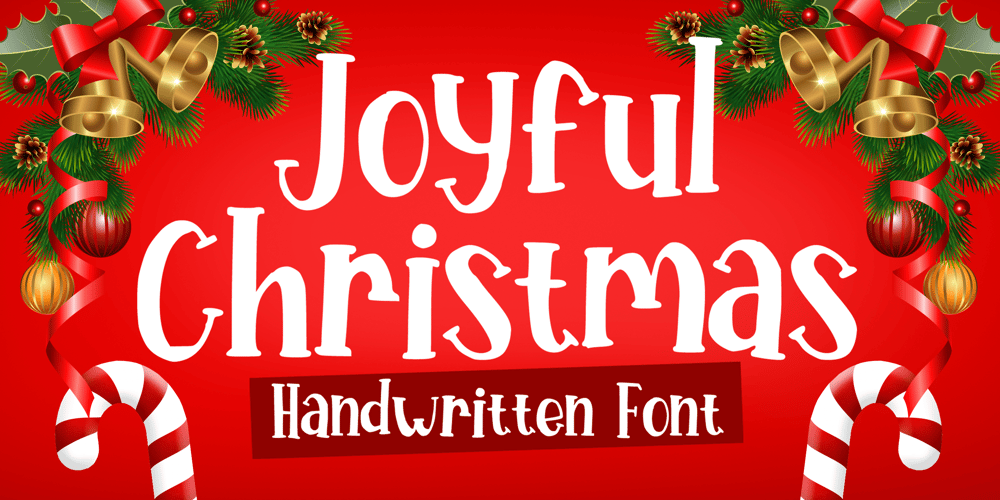
Joyful Christmas
Joyful Christmas font
Joyful Christmas Font Family was designed by Gabriel Valentinus and published by Mvmet. Joyful Christmas contains 1 styles and family package options. Joyful Christmas is your perfect Christmas font! it’s versatile and fun to use handwritten font. It will elevate a wide range of design projects to the highest level. You can use this font for many design ideas such as stickers, t-shirt designs, amazing logo designs, magazine or book covers, comics, cartoon drawings, daily typing, and many more. This font will add a super cool touch to your designs!